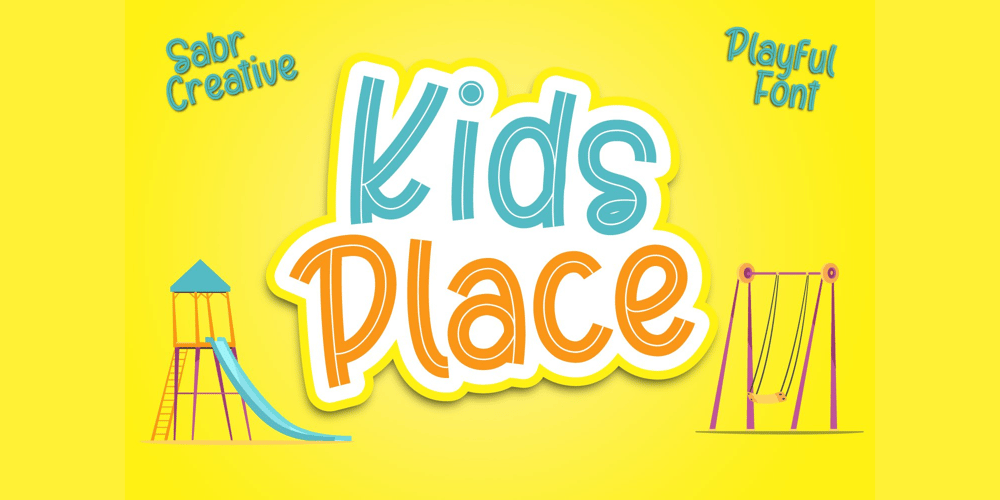
Kids Place Font Family was designed by Irpan Maulana and published by Sabrcreative. Kids Place contains 3 styles and family package options. Introducing Kids Place, a delightful and vibrant display sans serif font designed to bring joy and playfulness to your designs. This font is perfect for adding a touch of whimsy to children’s books, nursery decor, party invitations, and more. Let your creativity soar with Kids Place and create designs that capture the imaginations of both young and young-at-heart.With its charming combination of uppercase and lowercase letters, Kids Place offers versatility and adds a sense of fun to your typography. The extensive set of numbers and punctuations ensures consistency and usability in various design projects.Kids Place goes beyond language barriers with its multilingual support, allowing you to express your messages in different languages and connect with a global audience. From English to Spanish, French to German, Kids Place provides a seamless experience.Unlock the full potential of Kids Place with its PUA encoding, which grants easy access to additional glyphs and characters. This feature enables you to add playful elements and unique touches to your designs, making them truly stand out.Let your imagination run wild with Kids Place, the perfect font for all your whimsical and playful projects. Whether you’re designing for children or simply embracing your inner child, Kids Place is the font that will bring a smile to your face.